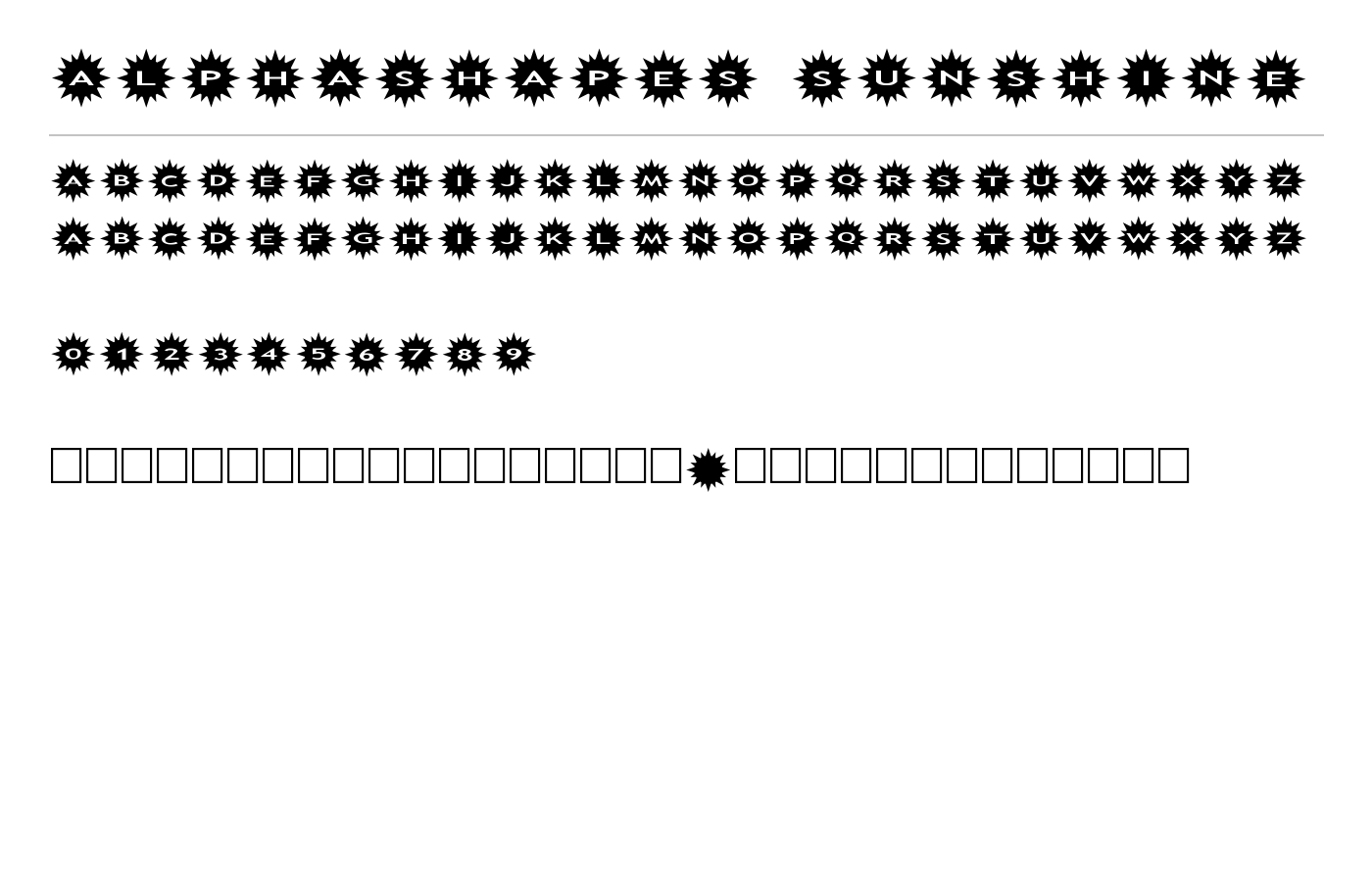
AlphaShapes Sunshine is a bold, decorative display font featuring uppercase letters and numbers enclosed within sharp, sunburst-like star shapes. Its striking and playful design adds a vibrant, energetic feel, making it ideal for eye-catching headlines, logos, and creative projects that need a lively, retro-inspired touch. This font works best in large sizes where its unique shapes can shine and create a memorable impression.
AlphaShapes sunshine Font
About AlphaShapes sunshine Font